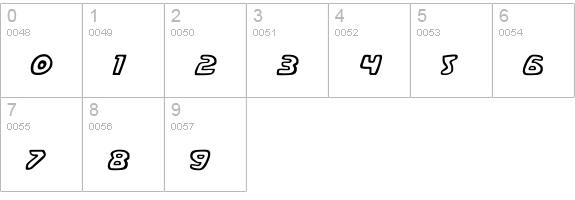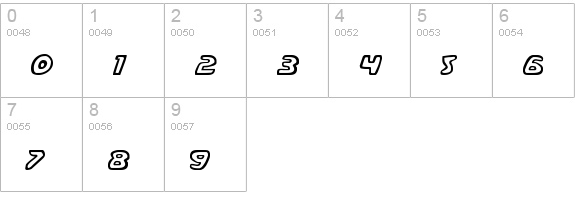
Casper Comics font is a whimsical and playful typeface that brings a touch of fun to any design project. With its quirky style and friendly appearance, this font is perfect for comic books, children's books, posters, and more. Casper Comics font is free to use for personal and commercial projects, making it a versatile option for any creative endeavor. You can freely download the Casper Comics font at FontsMarket.com, where you will find a wide range of other high-quality fonts to enhance your designs. Add a touch of charm and personality to your projects with Casper Comics font today!